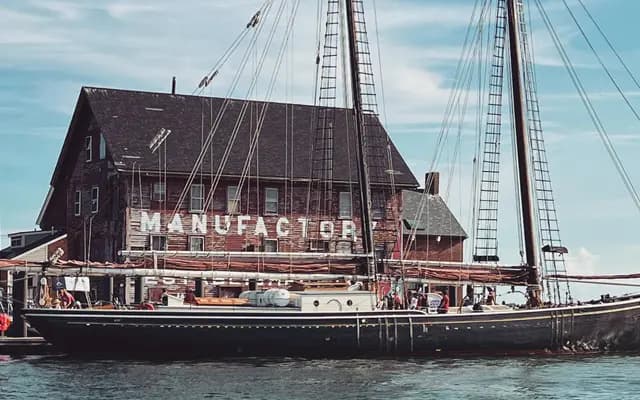
Paint Factory
An all-caps display typeface drawn from the weathered hand-painted lettering on a 19th-century marine paint factory in Gloucester Harbour, Massachusetts.
Available in Regular and Bold, it covers A–Z, numerals, basic punctuation and a handful of alternate glyphs. The deliberate roughness and angular bends of the source lettering are preserved throughout, lending it credibility in signage, athletic and collegiate contexts. It suits sweatshirt graphics, blue-collar branding or any project that calls for the character of layers of hand-applied paint.
An all-caps hand-painted display face with deliberate roughness and imperfection, inspired by weathered signage lettering on a 19th-century New England building. Its angular forms and worn texture place it firmly in the vintage display category.